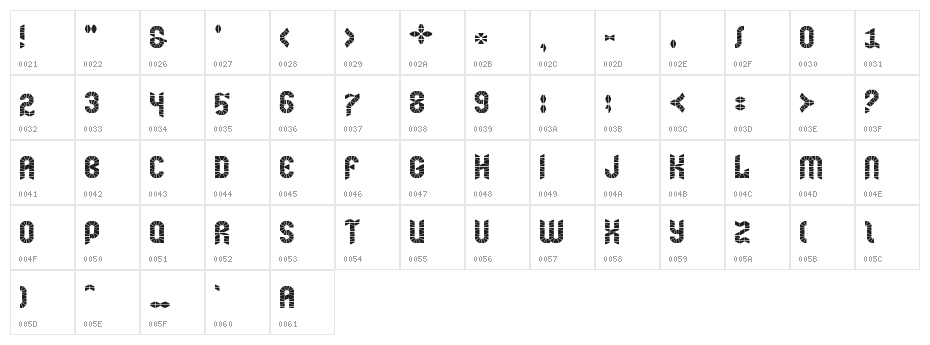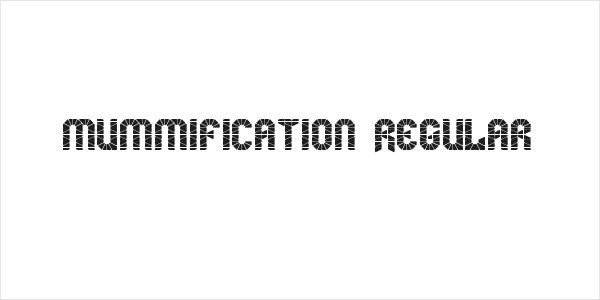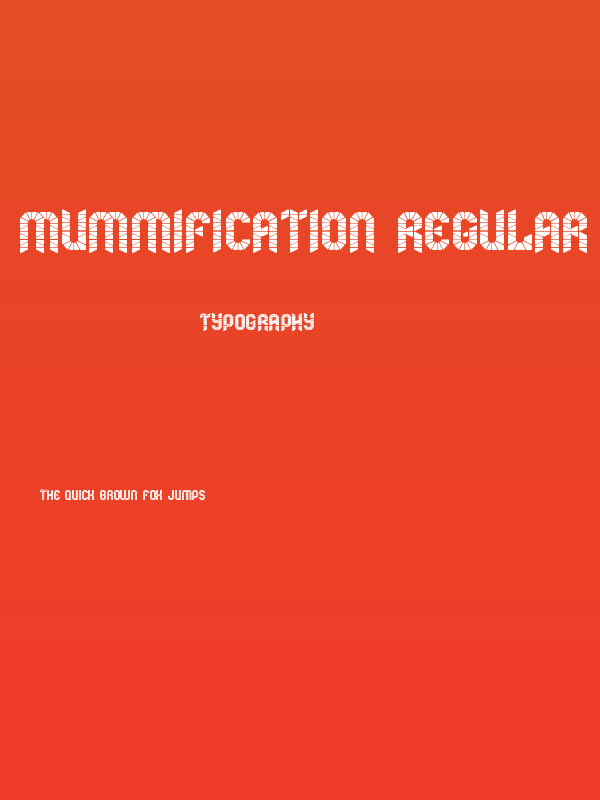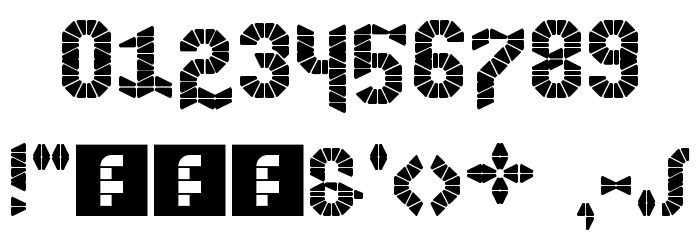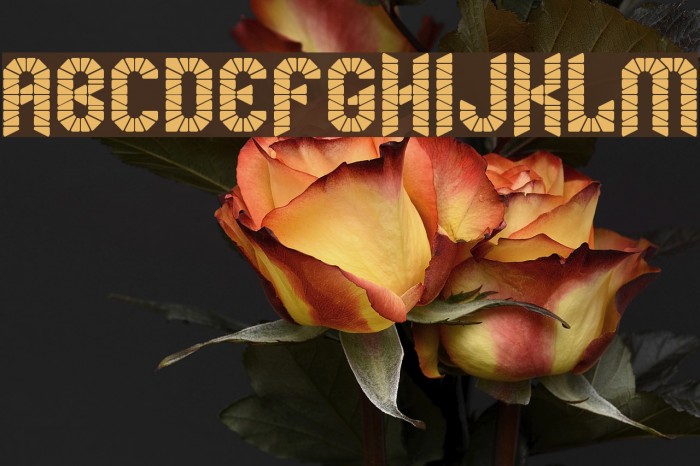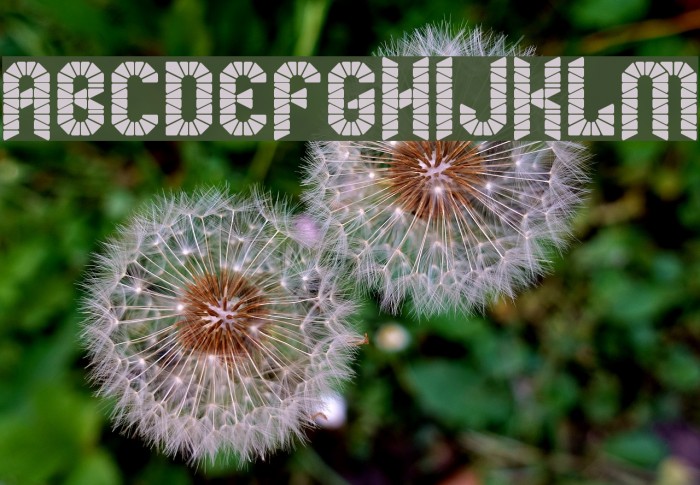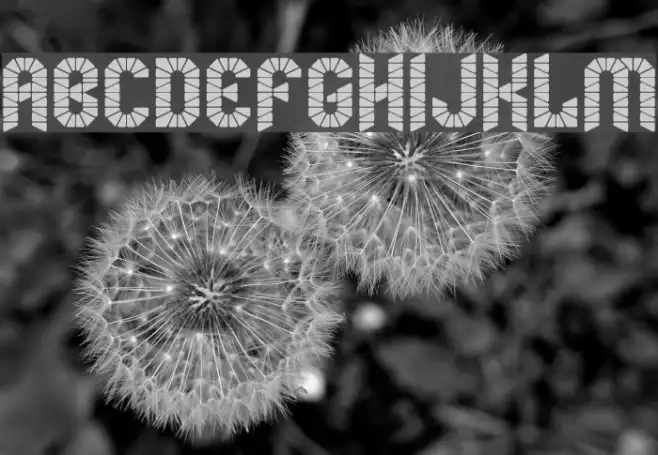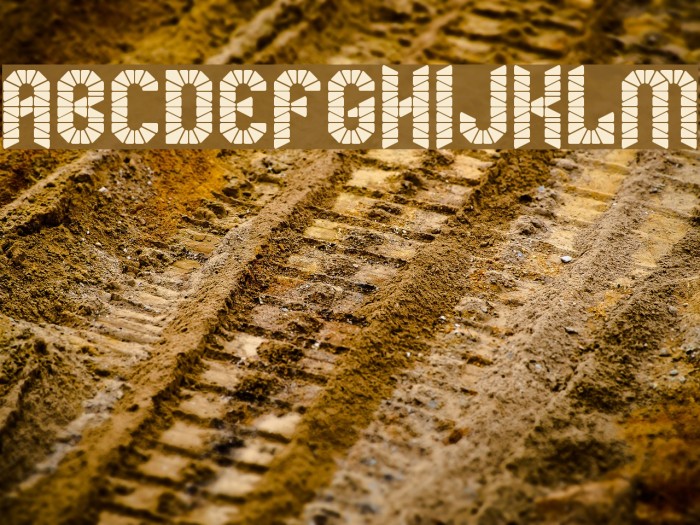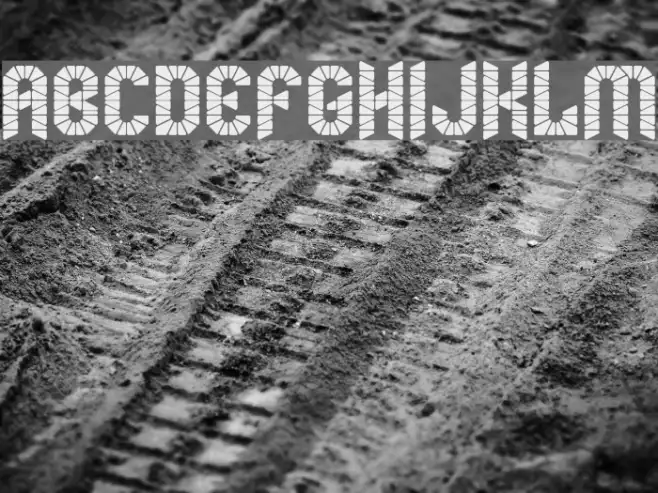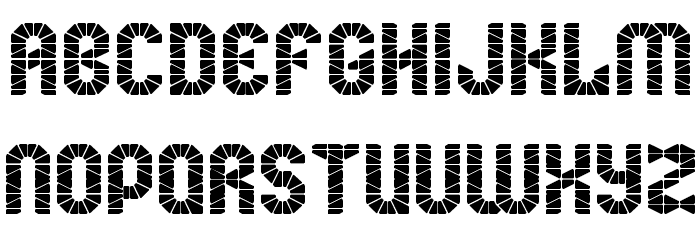
mummification Regular Font
mummification Regular Description
This font features a unique geometric design with a pattern resembling bandages or wrappings, creating a distinctive and bold appearance. Each character is composed of segmented lines that form a cohesive and intriguing visual style. The uppercase and lowercase letters maintain a consistent design, with the numbers and special characters following suit. The font's structure is solid and impactful, making it ideal for attention-grabbing designs. Its decorative nature is well-suited for thematic projects that require a strong visual identity.
| Proposed Projects | Ideal for Halloween-themed designs, posters, branding for escape rooms, or any project needing a mysterious and bold aesthetic. |